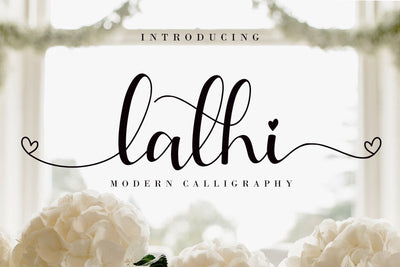
Lathi
Lathi is a beautiful modern handwritten font featuring cute hearts in its swashes.
It will elevate a wide range of design projects to the highest level, be it branding,
headings, wedding designs, invitations, signatures, logos, labels, and much more!
- (a-z) titling, (a-z) swashes, and Ligature